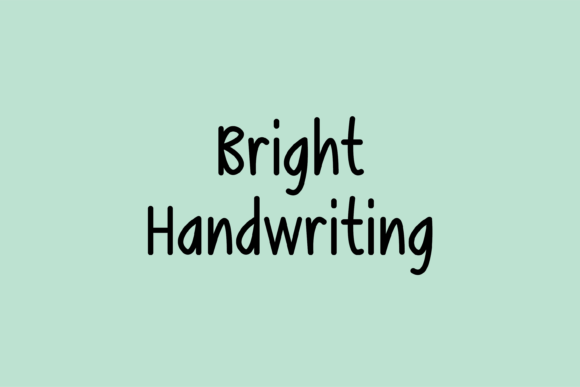
The Bright Font: A Simple yet Powerful Handwritten Delight
I’ll never forget the time I was working on a wedding invitation project, and my client asked for a font that was both whimsical and elegant. I scoured the internet, tried out dozens of fonts, but nothing seemed quite right. That was until I stumbled upon the Bright font. ✨ It was love at first sight! The perfect blend of simple, friendly, and quirky, Bright has become one of my go-to fonts for a wide range of design projects.
An Honest Review of Bright Font
- ✨ Simple and friendly handwritten style that’s perfect for a wide range of design projects
- ✅ Whimsical and quirky, adding a touch of personality to any design
- 💕 Perfect for logos, wedding invitations, quotes, advertisements, print, magazines, and more!
- 🎉 Easy to read and understand, even at small font sizes
While Bright font is an excellent choice for many projects, there are a few things to keep in mind: 🤔
- ⚠️ Limited availability of stylistic alternates, which may limit its use in certain design contexts
- ⚠️ May not be the best choice for body text, as it’s optimized for headlines and titles
The Story Behind Bright Font
Bright font was designed by a talented typographer who wanted to create a simple, friendly font that would brighten up any design. With its whimsical, quirky personality, Bright font has become a favorite among designers and crafters. While the designer’s story is shrouded in mystery, their creation has made a lasting impact on the design community. 🌟
| Font Name | Bright Font |
| Author | Woracado |
Q: What is Bright font?
A: Bright font is a simple and friendly handwritten font that’s perfect for a wide range of design projects, from logos and wedding invitations to quotes and advertisements.
Q: What are some common uses for Bright font?
A: Bright font is perfect for logos, wedding invitations, quotes, advertisements, print, magazines, and more! Its whimsical, quirky personality makes it a great choice for creative projects and personal expression.